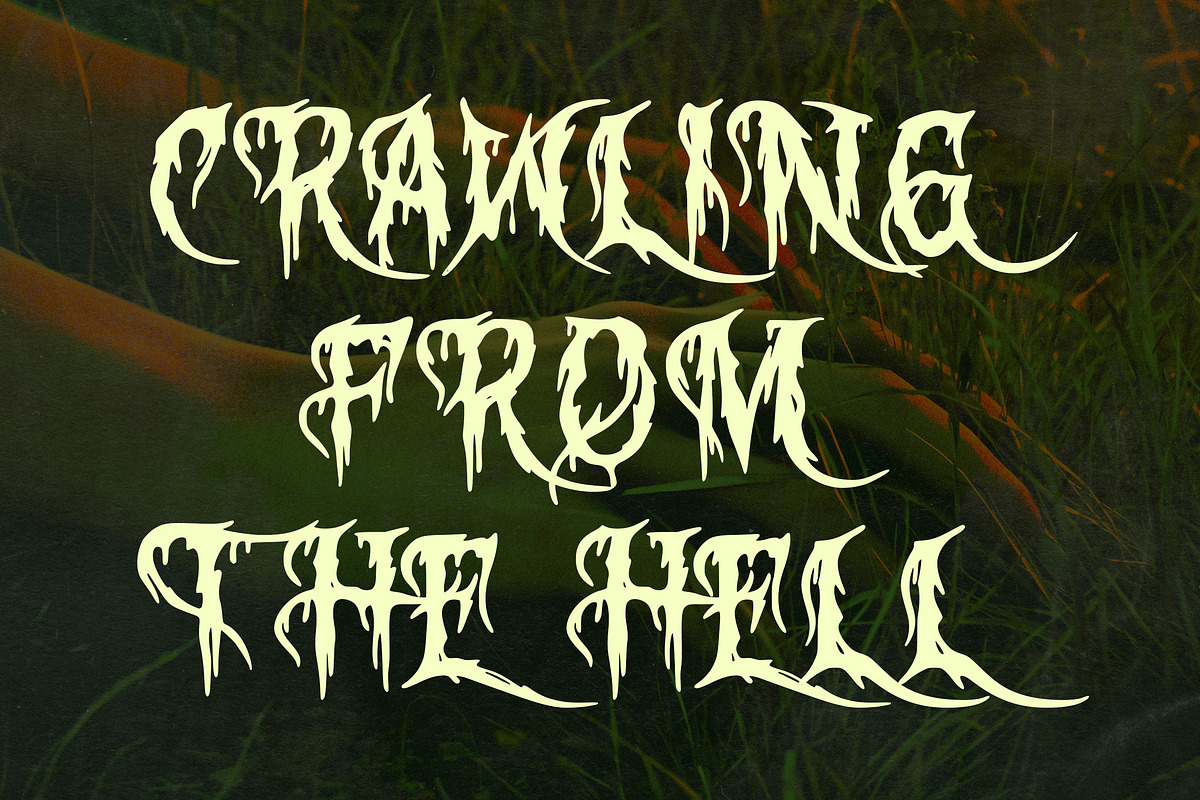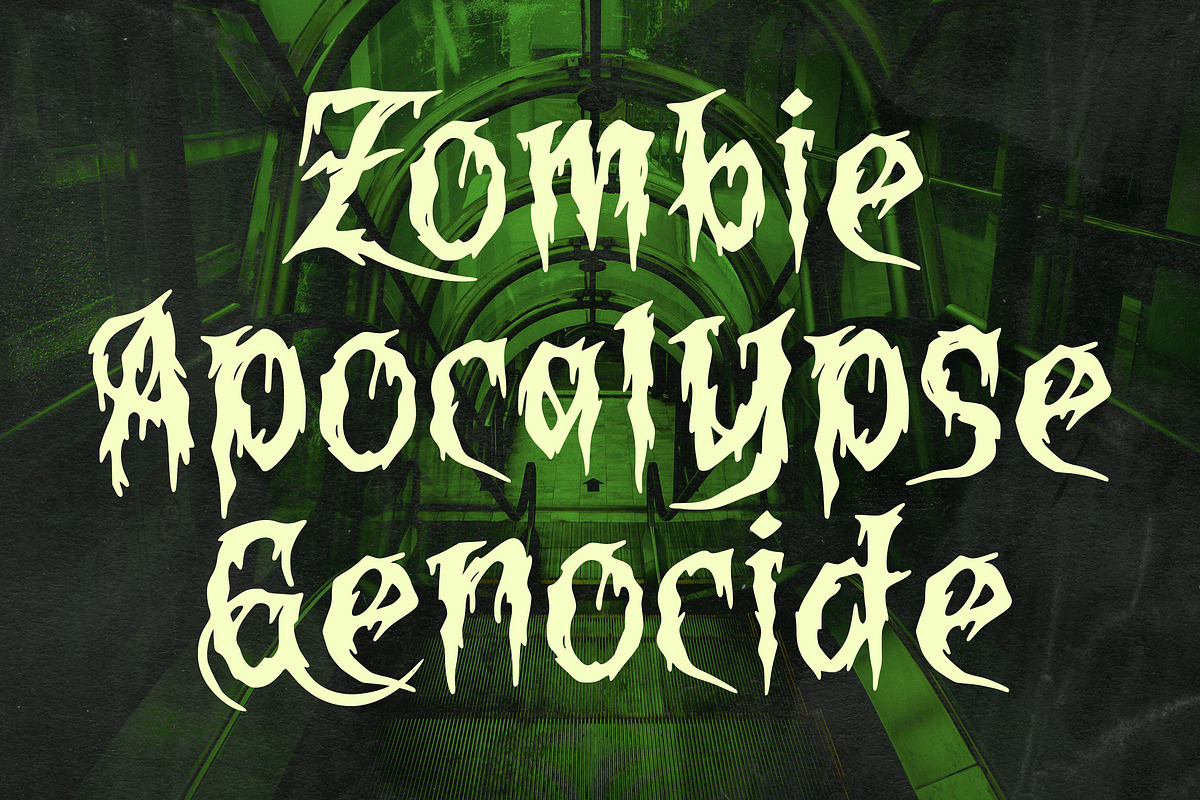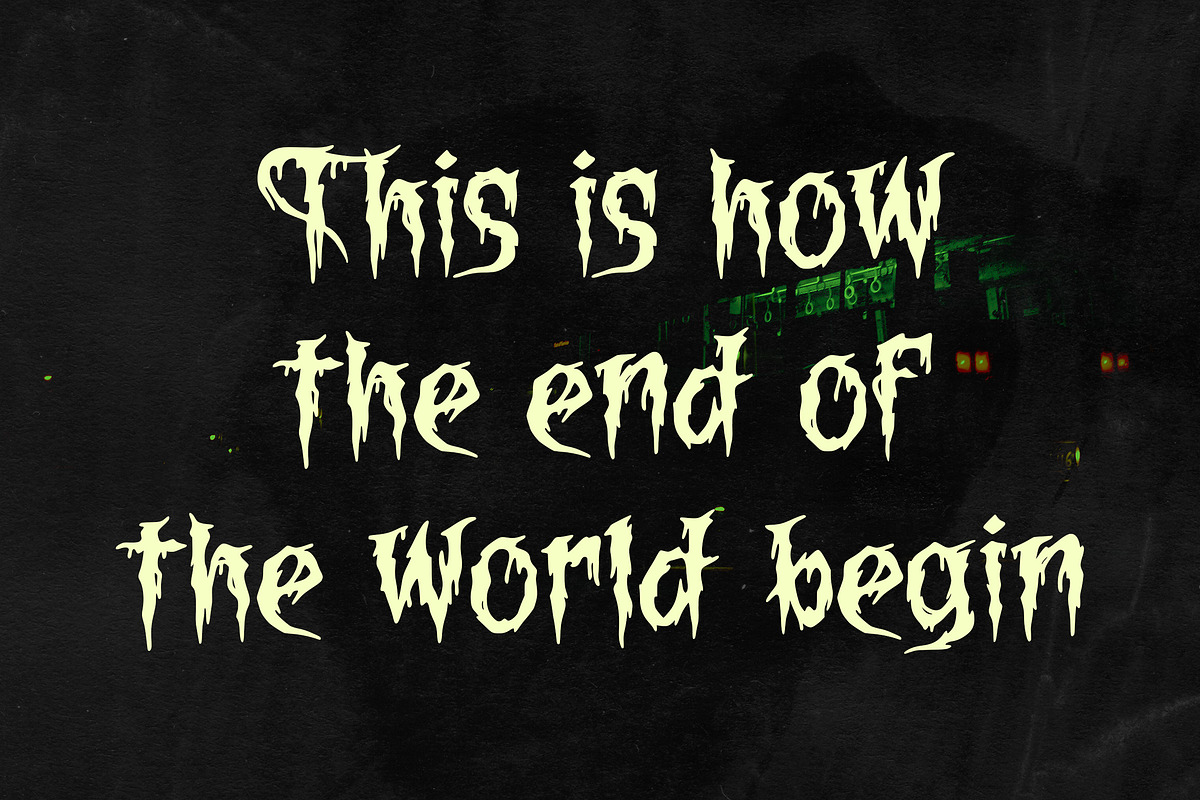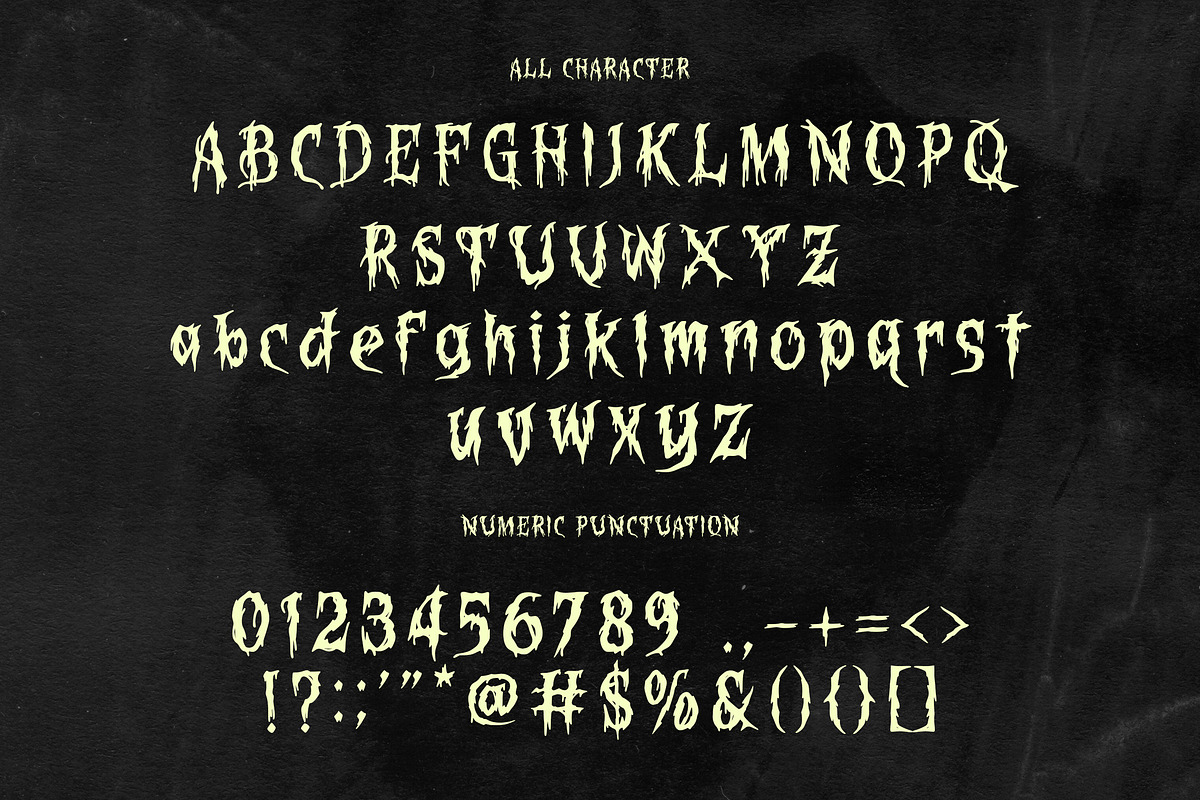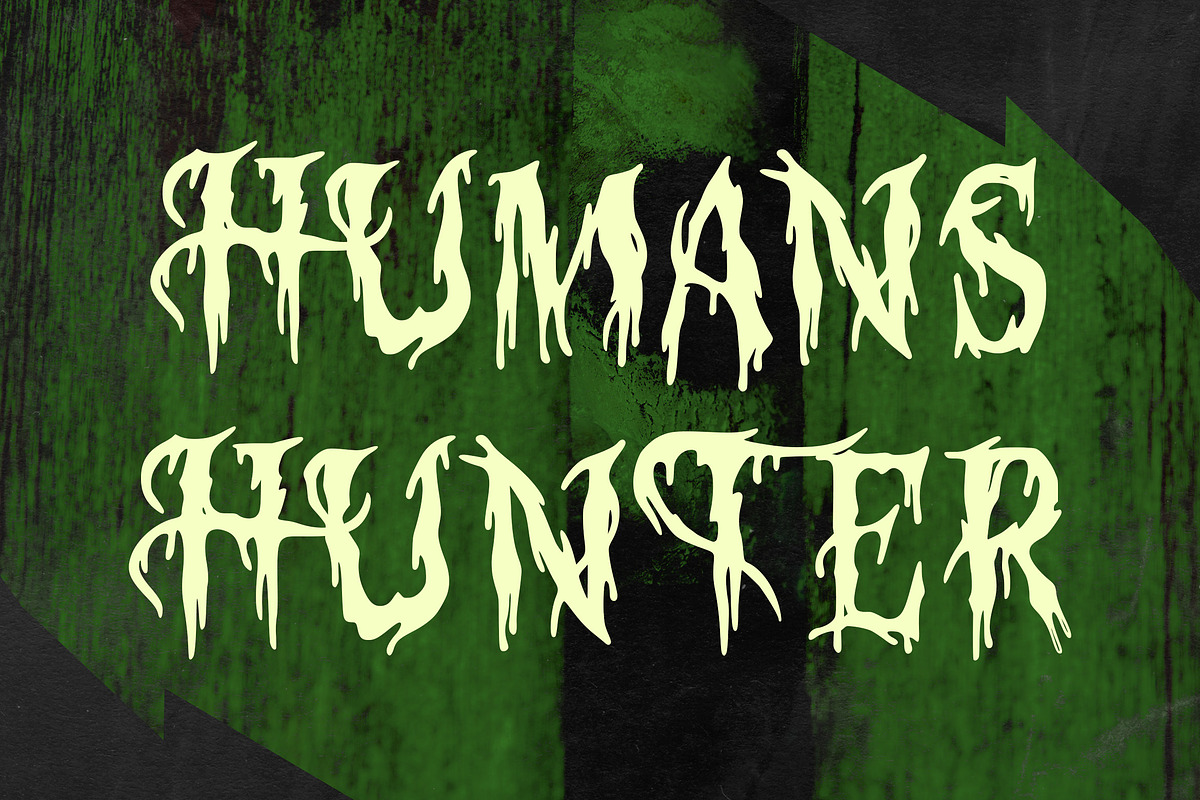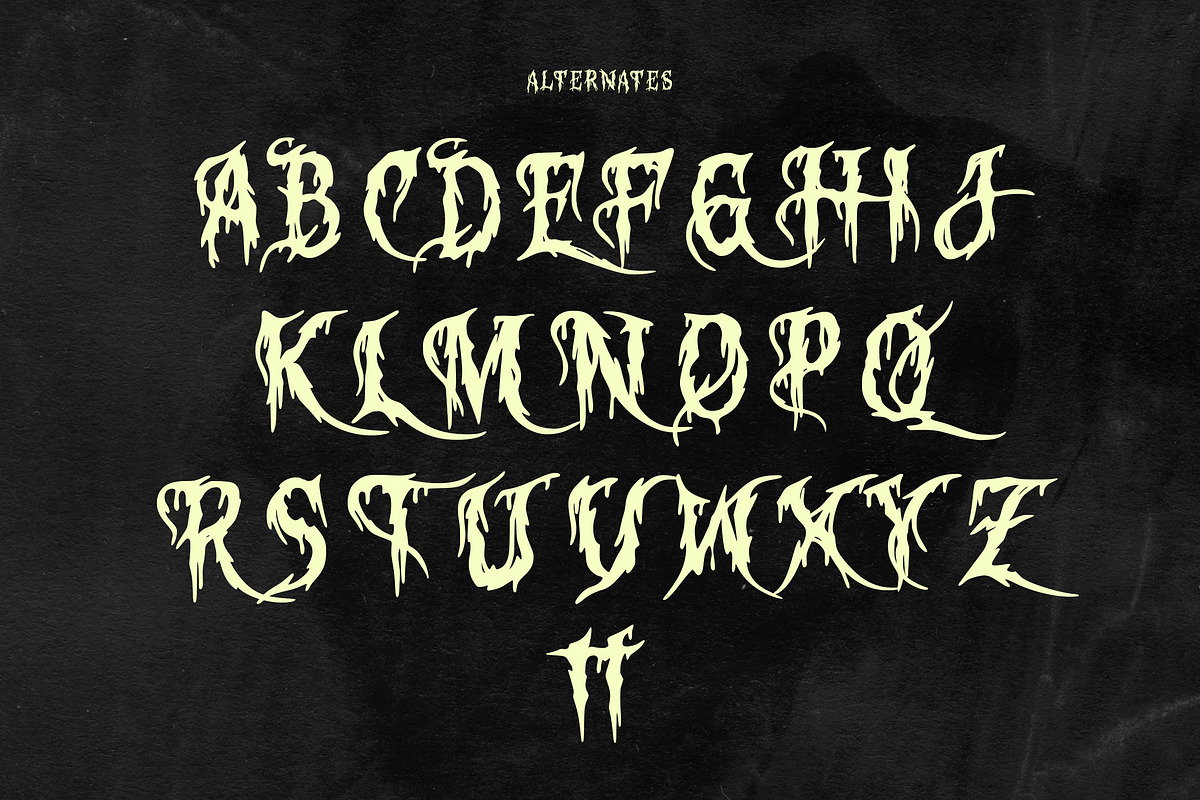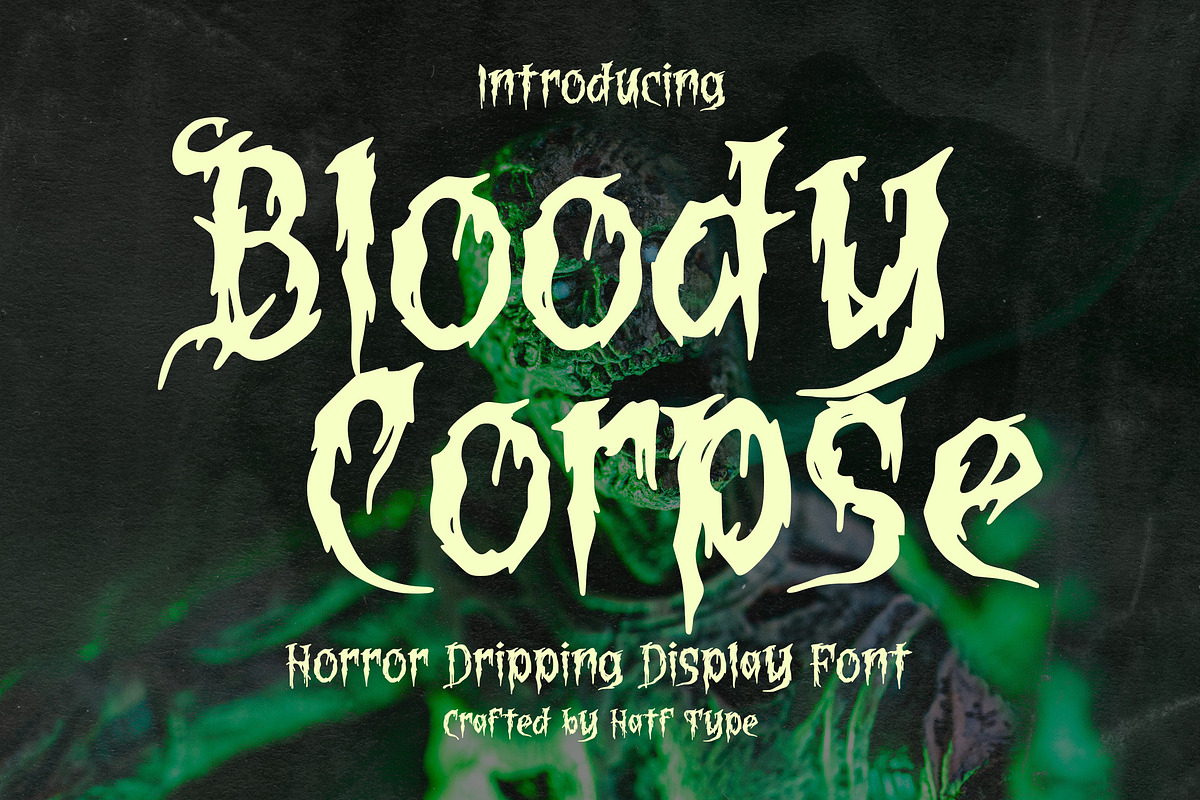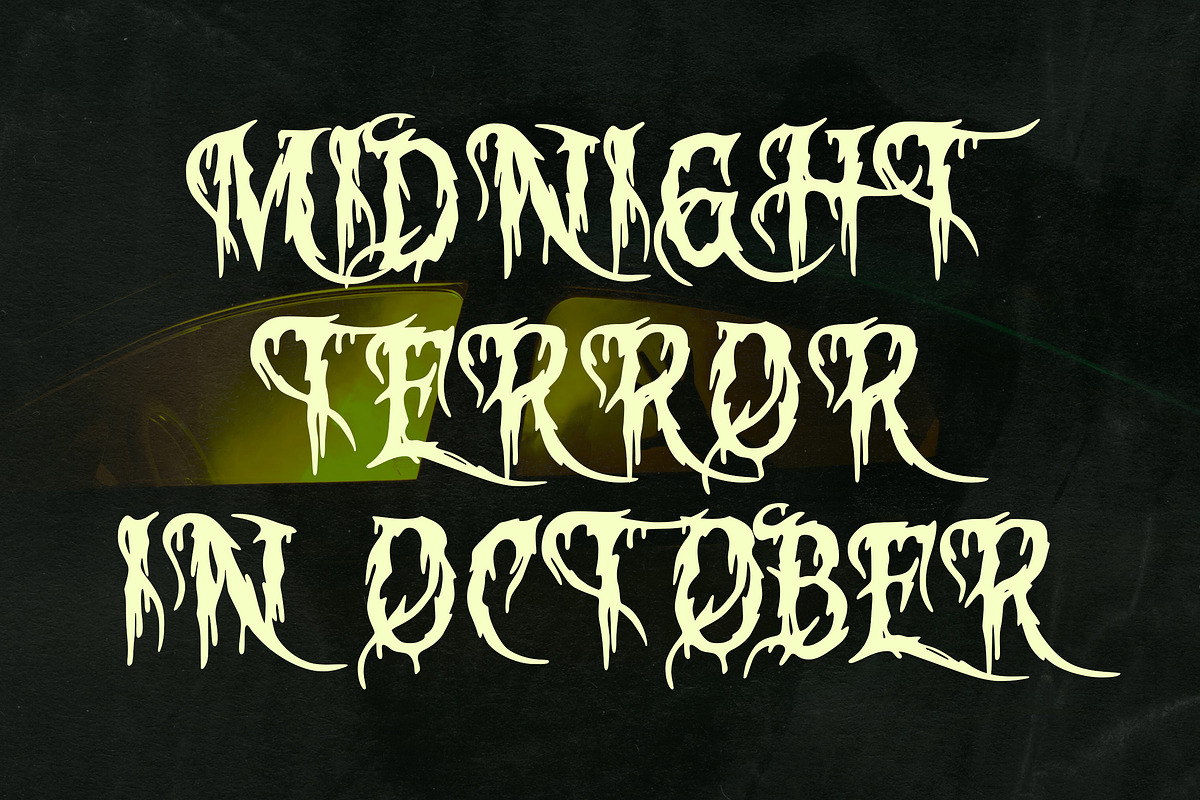
Bloody Corpse
Unleash a wave of terror with Bloody Corpse, an alarming display font bathed in chilling nuances. Trickling down each letter is a blood curdling, fresh blood drip effect, embodies a sense of dread perfect for horror film poster headlines, Halloween centric creations, and spine tingling survival games. Infuse your unique projects with an element of horror and theatrical drama. Bloody Corpse’s audacious and substantial lines, coupled with robust letter forms, masterfully depict the sinister dripping, providing a cold shiver of terror and immediate intrigue. This font is a surefire way to captivate and pique the curiosity of your audience.